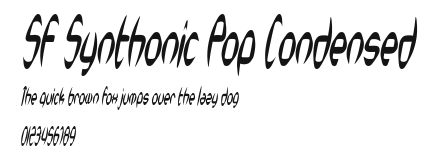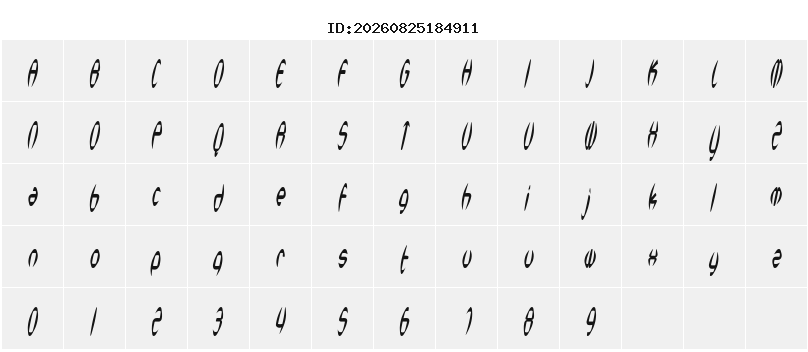
SF Synthonic Pop Condensed Preview
• Font Name: SF Synthonic Pop Condensed
• Font Style: Oblique
• Full Font Name: SF Synthonic Pop Condensed Oblique
About SF Synthonic Pop Condensed.ttf
SF Synthonic Pop Condensed.ttf is a modern, elegant sans-serif font designed for ultimate readability and visual harmony. Perfect for branding, headlines, web design, and print materials.